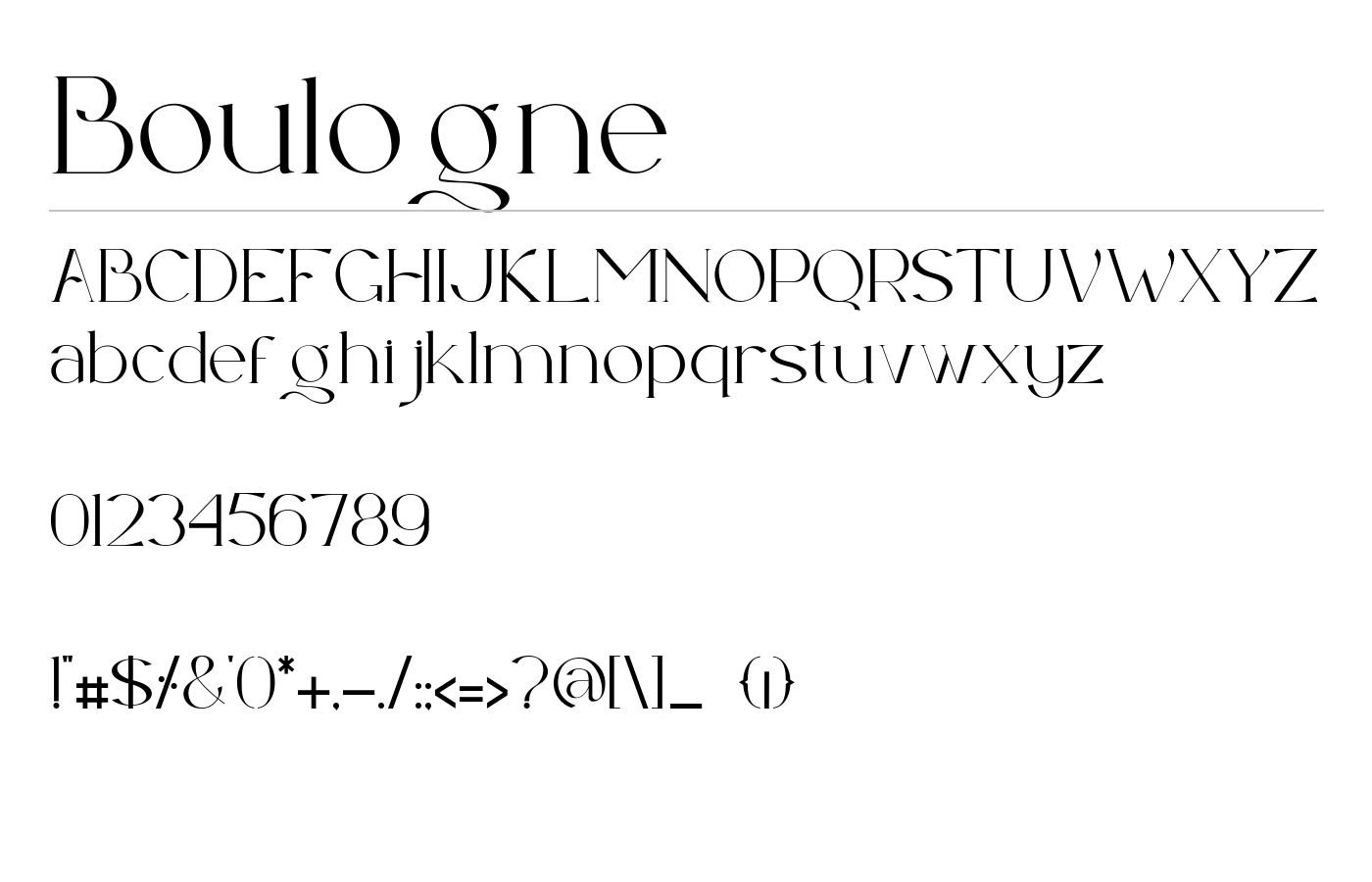
Boulogne is an elegant serif font with a modern, high-contrast style that combines thin, sharp strokes with delicate, curved details, giving it a refined and artistic look. Its tall x-height, slender letterforms, and unique features like the swirled descender on the "g" make it ideal for luxury branding, fashion editorials, and sophisticated headlines where a stylish and contemporary feel is desired. This font works best in display uses, adding a touch of elegance and distinctiveness to any design.
Boulogne Font
About Boulogne Font
| Font family | Boulogne Font |
| Designer | Ali sifak |